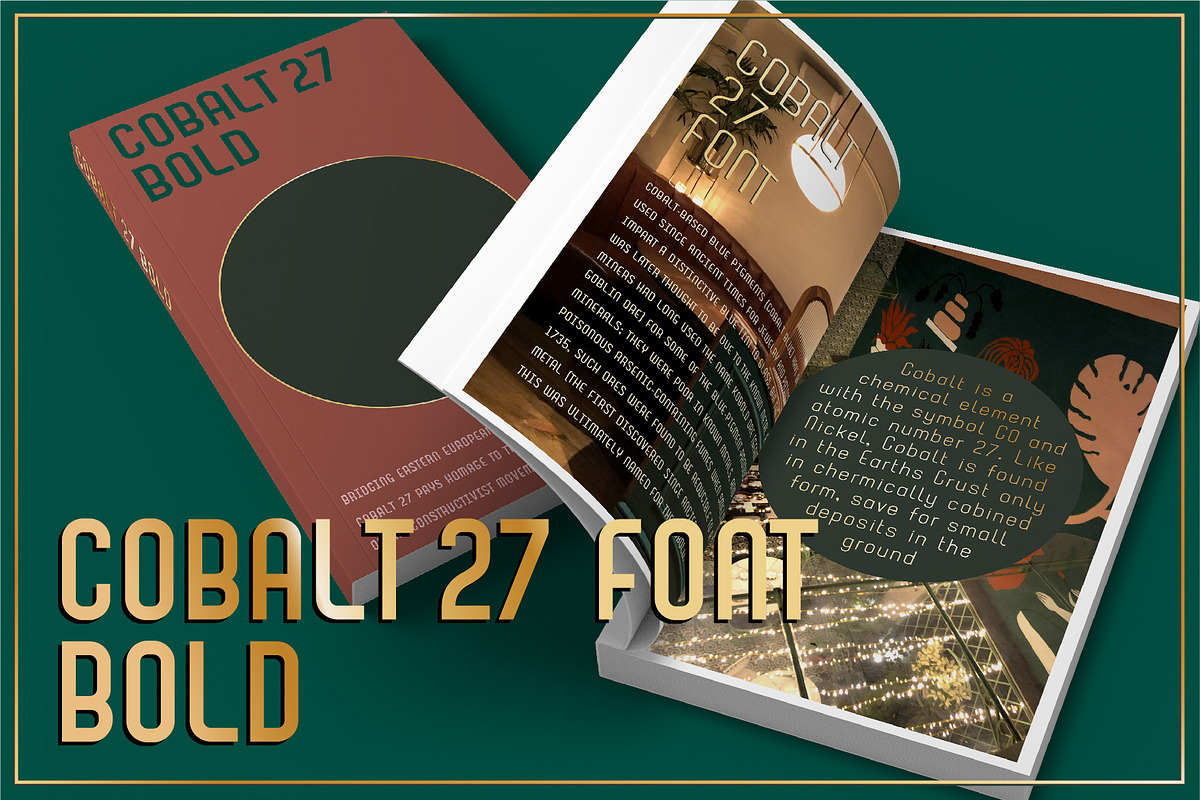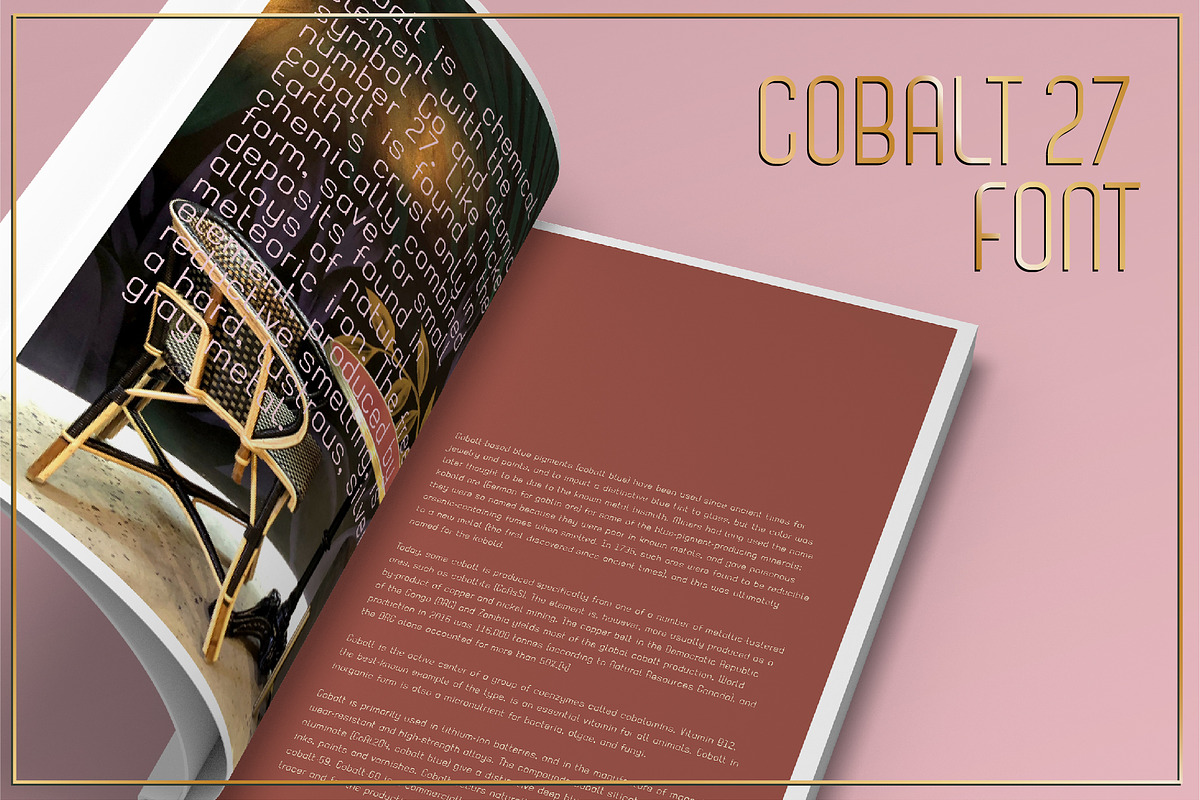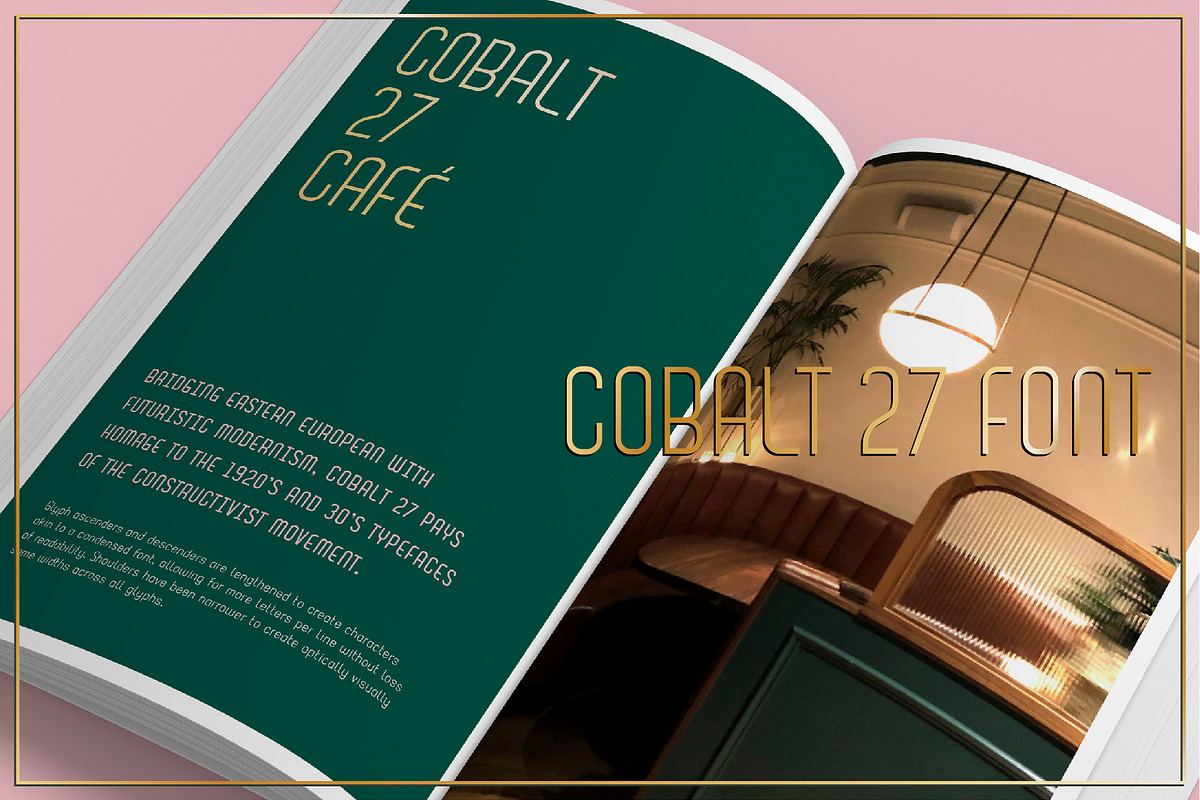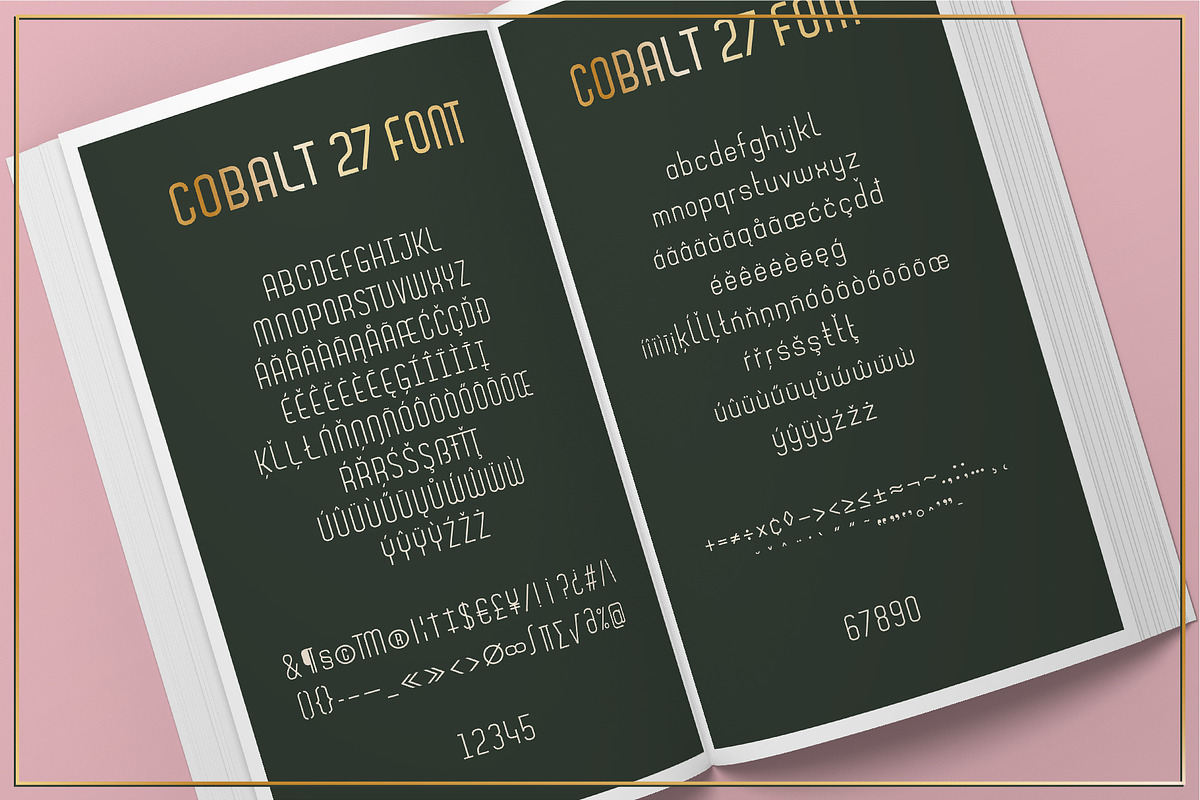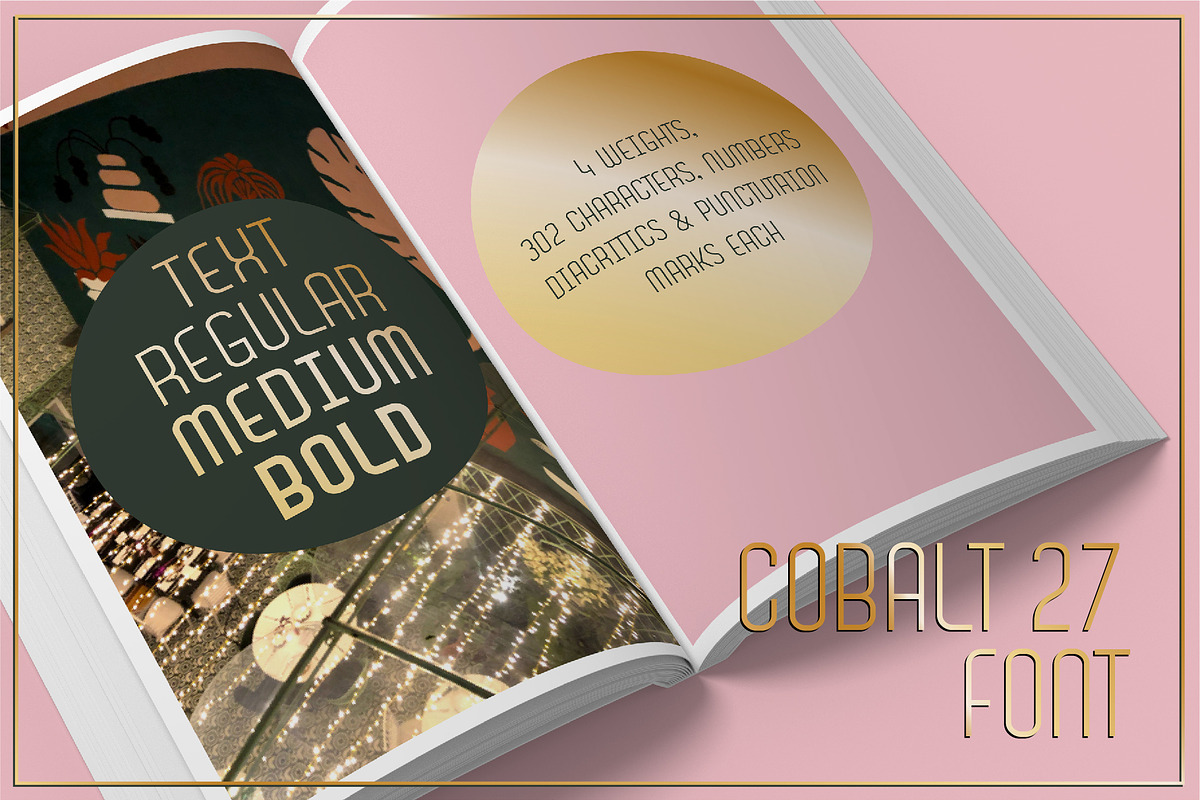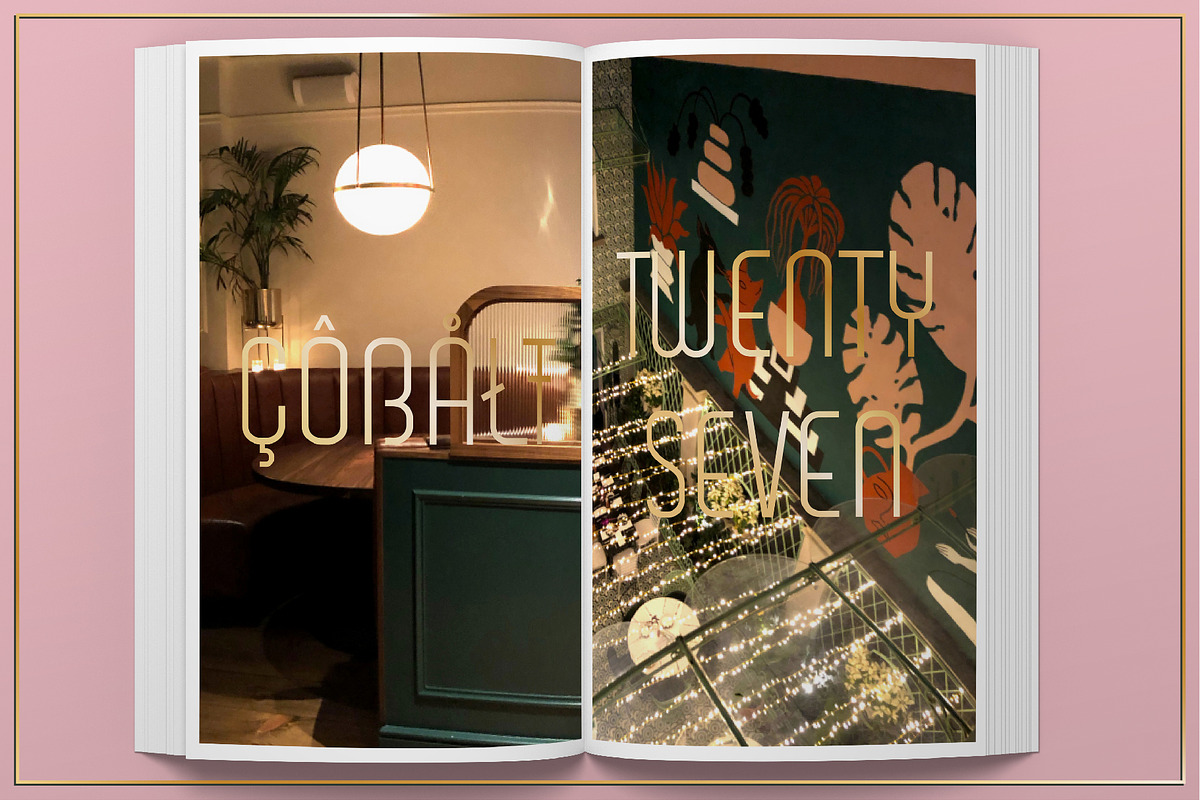
Cobalt 27 Modernist Bold Font
Bridging Eastern European with Futuristic Modernism, Cobalt 27 pays homage to the 1920's and 30's typefaces of the constructivist movement. Glyph ascenders and descenders are lengthened to create characters akin to a condensed font, allowing for more letters per line without loss of readability. Shoulders have been narrower to create optically visually same widths across all glyphs.
BOLD - designed for primary headers, display or larger applications.
MEDIUM - to be used as in place of Bold when a lighter version is needed, or a secondary header when combined with other weights.
REGULAR - Can be applied to all applications - mainly designed for lighter weight body and header treatments.
TEXT - similar to Regular but with shorter ascenders and descenders where shorter leading is required.
Cobalt 27 font belongs to the Cobalt 27 typeface family offering an array of different weights, alternates, and bolder headers with a total of 307 glyphs.